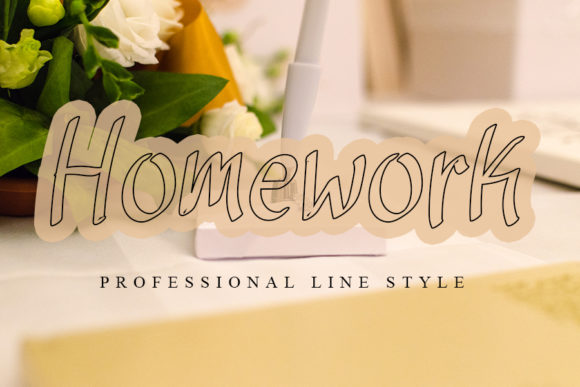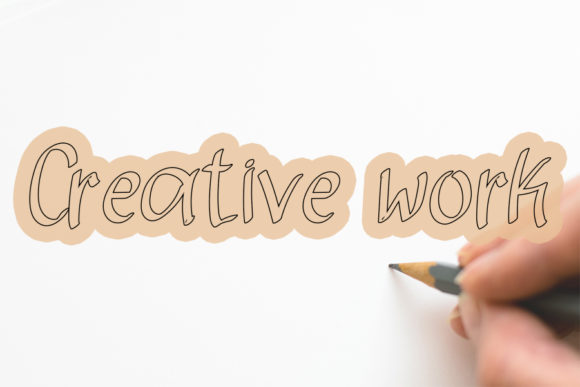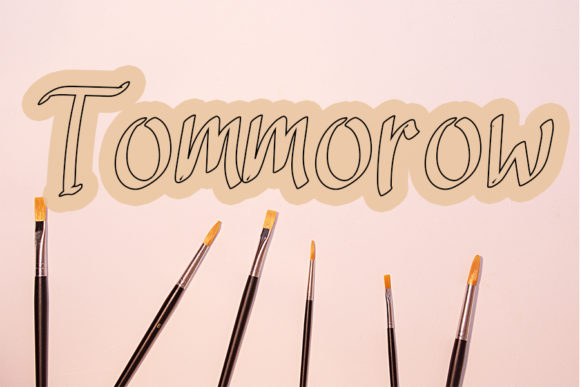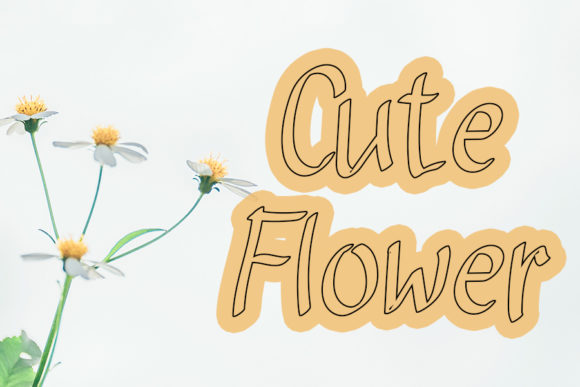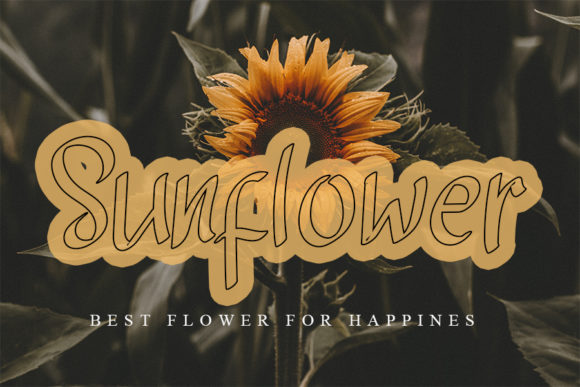
Homework Font
About Homework Font
Homework is a casual and relaxed handwritten font. Fall in love with its incredibly versatile style and use it to create gorgeous wedding invitations, beautiful stationary art, eye-catching social media posts, and much more!